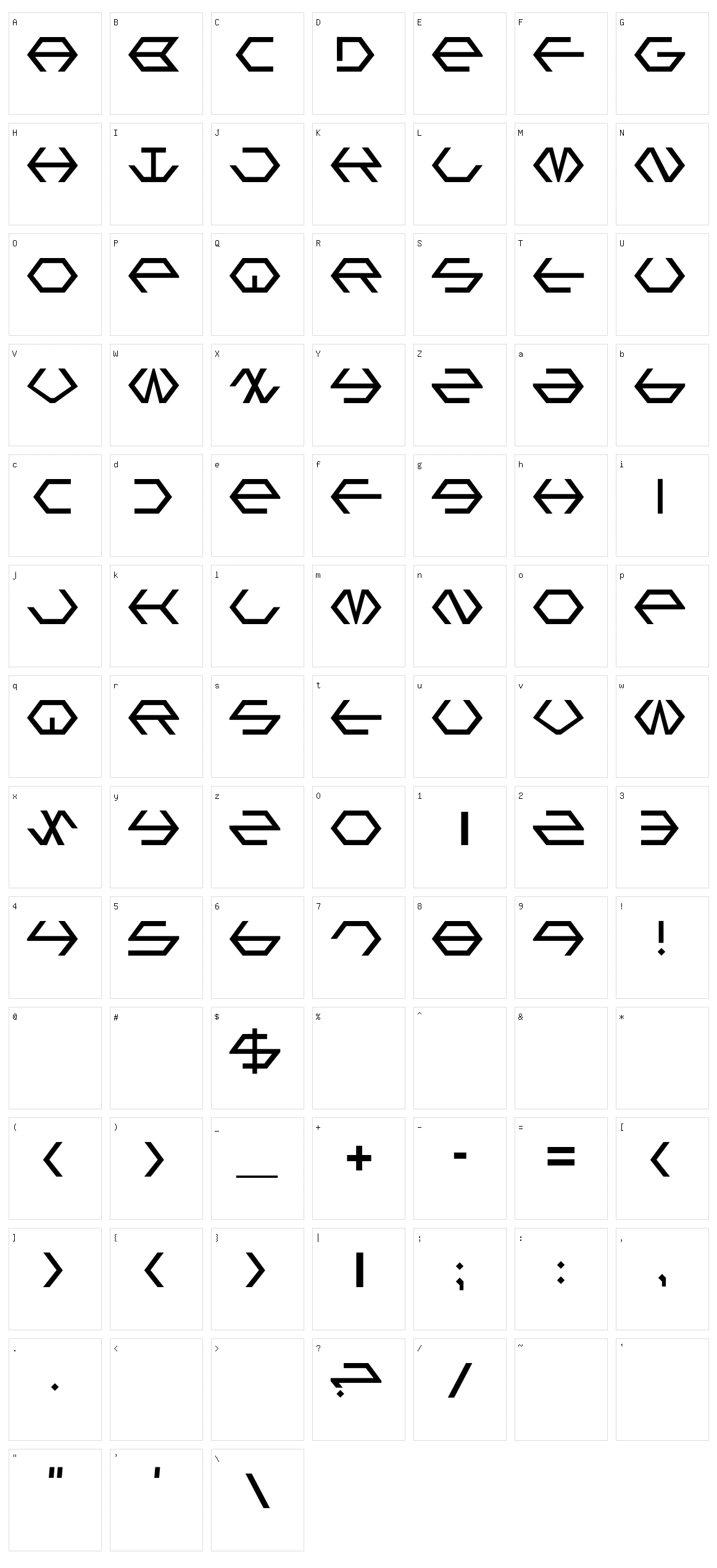
The free font Gamma Sentry is carefully designed by Iconian Fonts, showcasing a thoughtful balance of creativity and usability and belongs to the Techno font family. When you download the ZIP file, it contains only 6.3 KB of font files, making it lightweight and quick to download. Please review the license details below to understand permitted usage and distribution rights. If license information is not available, we recommend using this font for personal projects only or contacting the author directly for commercial usage permissions.